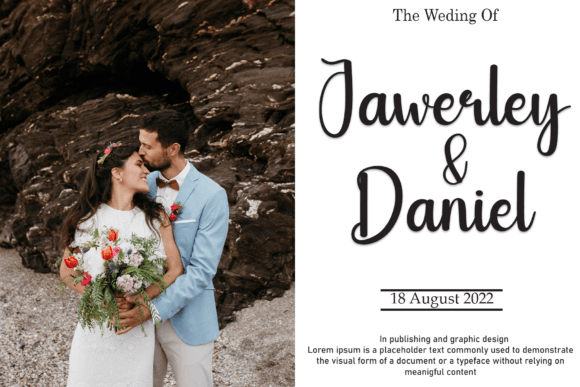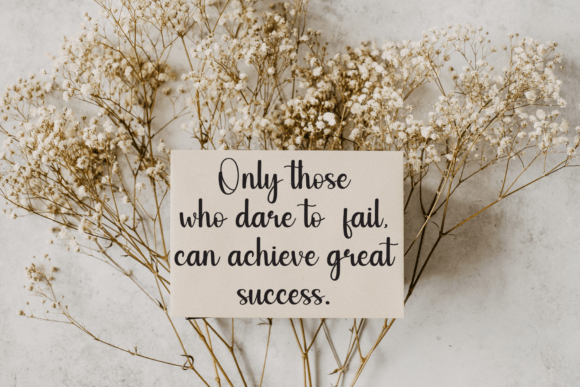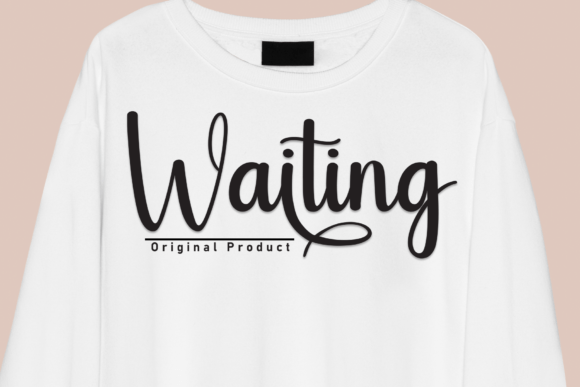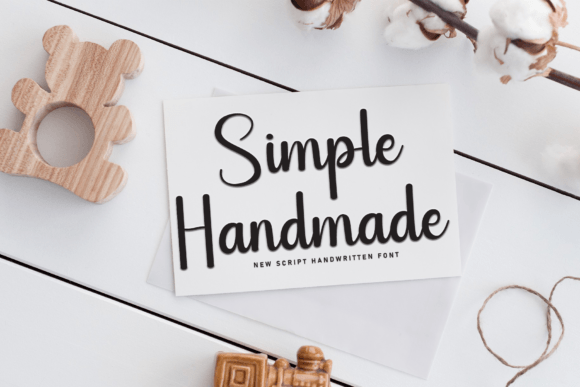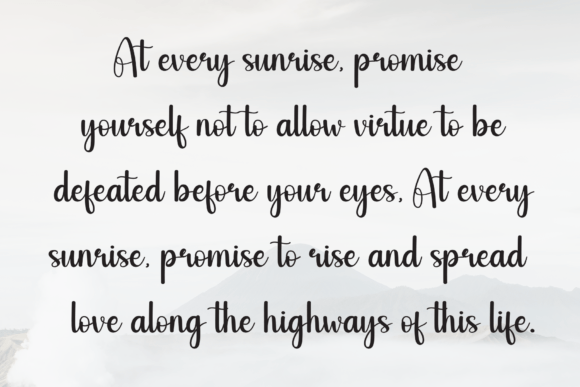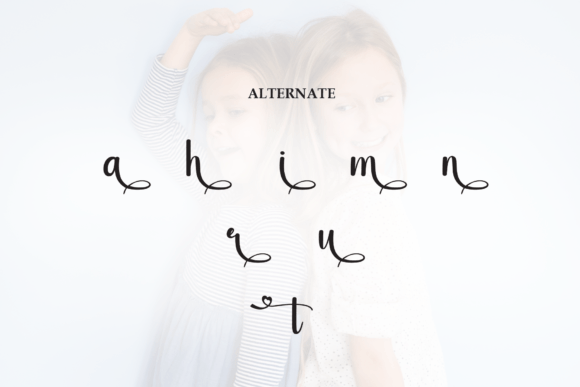
Introducing Almost Font: The Sweet and Friendly Handwritten Display Font
Are you looking for a font that can add a touch of warmth and personality to your designs? Look no further than Almost Font, a sweet and friendly handwritten display font that’s perfect for creating eye-catching and engaging visual content. In this article, we’ll take a closer look at the features and benefits of Almost Font, and explore how you can use it to elevate your designs.
What is Almost Font?
Almost Font is a beautiful handwritten display font that’s designed to bring a sense of fun and playfulness to your designs. With its cute and charming lettering style, this font is ideal for creating wedding invitations, greeting cards, and other designs that require a personal touch. Whether you’re a designer, crafter, or DIY enthusiast, Almost Font is a versatile and easy-to-use font that can help you create stunning visual content.
Key Features of Almost Font
- Handwritten display font: Almost Font is a handwritten display font that’s designed to mimic the look and feel of handwritten lettering. Its unique and charming style makes it perfect for creating eye-catching headings, titles, and text.
- Cute and fun: This font is characterized by its sweet and friendly lettering style, which is sure to add a touch of whimsy and playfulness to your designs.
- Perfect for wedding invitations and cards: Almost Font is an ideal choice for creating wedding invitations, greeting cards, and other designs that require a personal touch.
Benefits of Using Almost Font
So why choose Almost Font for your designs? Here are just a few benefits of using this beautiful handwritten display font:
- Adds a personal touch: Almost Font can help you add a personal touch to your designs, making them more engaging and relatable to your audience.
- Creates a unique look: With its unique and charming lettering style, Almost Font can help you create a distinctive look that sets your designs apart from the rest.
- Versatile: This font can be used for a wide range of design projects, from wedding invitations and cards to posters, flyers, and more.
- Easy to read: Despite its playful style, Almost Font is easy to read, making it perfect for creating designs that require a clear and concise message.
How to Use Almost Font in Your Designs
Using Almost Font in your designs is easy. Here are a few tips to get you started:
- Pair it with other fonts: Almost Font can be paired with other fonts to create a unique and eye-catching look. Try pairing it with a sans-serif font for a modern and playful look.
- Use it for headings and titles: This font is perfect for creating headings and titles that require a personal touch. Use it to add a touch of whimsy and playfulness to your designs.
- Experiment with colors and textures: Almost Font can be used with a wide range of colors and textures to create a unique and eye-catching look. Experiment with different colors and textures to find the perfect combination for your design.
In conclusion, Almost Font is a beautiful handwritten display font that’s perfect for adding a touch of warmth and personality to your designs. With its cute and friendly lettering style, this font is ideal for creating wedding invitations, cards, and other designs that require a personal touch. Whether you’re a designer, crafter, or DIY enthusiast, Almost Font is a versatile and easy-to-use font that can help you create stunning visual content.